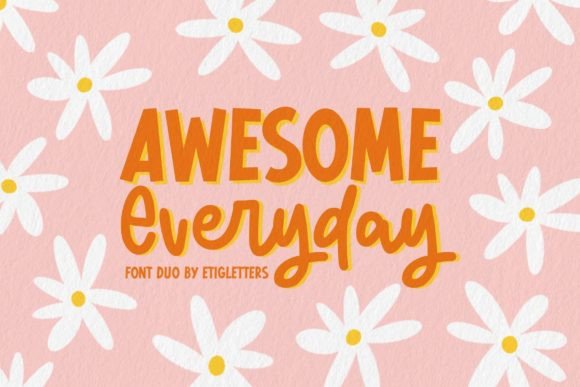
The Ultimate Font Duo for Fun and Happy Designs: Awesome Everyday
Have you ever been in the middle of a design project, and suddenly, you just can’t seem to find the right font? I recall a particularly frustrating experience while working on a greeting card design. My client wanted something fun, playful, and Instagram-worthy, but my go-to fonts just weren’t cutting it. That’s when I stumbled upon the Awesome Everyday font duo, and let me tell you, it was a game-changer! 🎉
A Personal Review of Awesome Everyday
I’m excited to share my honest review of this fantastic font combination. Here’s what I love:
- ✨ Perfect pairing: Awesome Everyday combines a handwritten font with a playful sans serif font, creating a match made in heaven.
- ✅ Versatile: This duo is perfect for a wide range of design projects, including stickers, greeting cards, logos, posters, and more.
- 😊 Fun and happy vibe: The fonts exude a carefree and cheerful personality, making them ideal for designs that require a lighthearted touch.
Now, I’m not saying it’s perfect, and here are some minor quirks to consider:
- 🤔 Limited use in formal designs: Due to its playful nature, Awesome Everyday might not be the best fit for formal or professional designs.
- ⚠️ Glyph compatibility: Some glyphs might not work seamlessly across different platforms, so be sure to test them before finalizing your design.
The Story Behind Awesome Everyday
Imagine a world where designers and crafters could create beautiful, fun designs without spending hours searching for the perfect font. That’s exactly what inspired the creation of Awesome Everyday. This font duo was crafted with love and care by a team of designers who wanted to bring a little joy and whimsy to the world of typography.
Awesome Everyday is a fantastic font duo that’s sure to bring a smile to your face and a touch of personality to your designs. With its playful and happy vibe, it’s perfect for a wide range of creative projects. So go ahead, give it a try, and see what amazing designs you can create! 😊